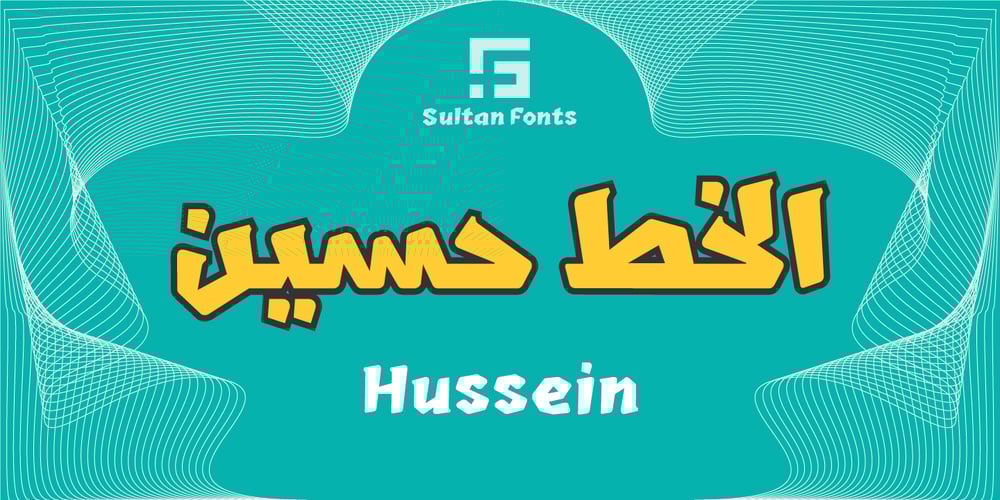
SF Hussein
SF Hussein font
SF Hussein Font Family was designed by Sultan Maqtari and published by Sultan Fonts. SF Hussein contains 1 styles and family package options. SF Hussein font is designed to be used in broad writing and short sentences. It is an ornate heading font with minimal details. Its domain is stationery, logos, branding, ad design, and posters, and it can be paired with a range of other font styles to create different moods.This font is an improvement of the Hussein font that was presented by designer Sultan Al-Maqtari in 2013The Hussain font supports Arabic, Latin, Persian, and Urdu.